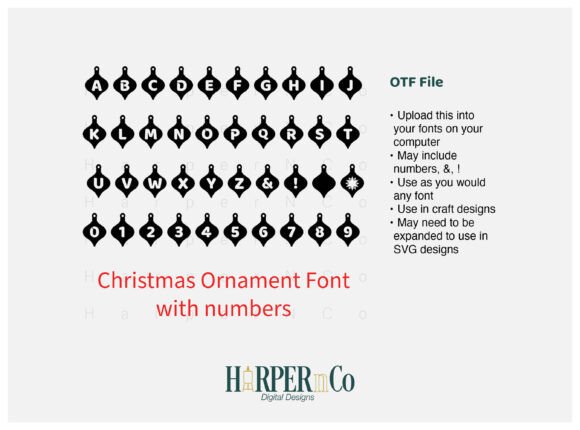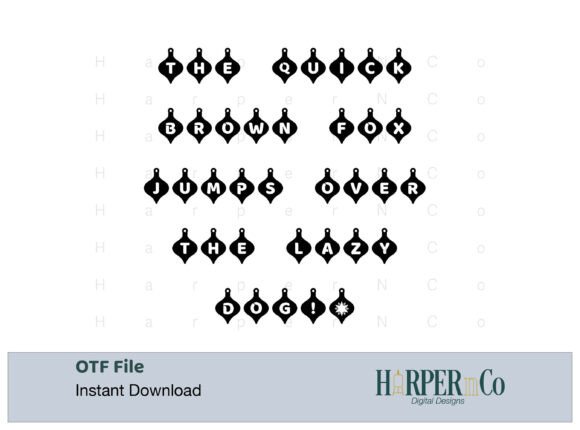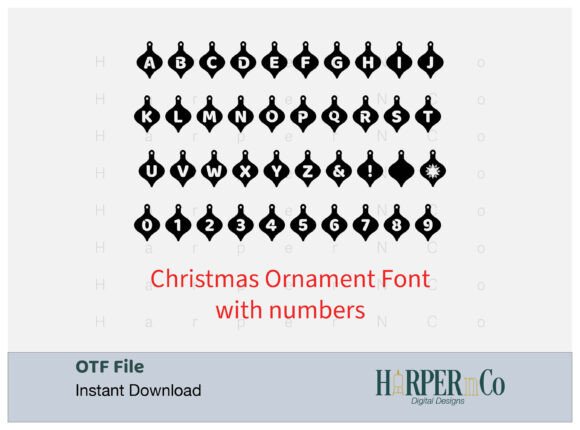
Introducing the Magical Christmas Ornament Font: Elevate Your Craft Projects This Holiday Season!
Are you a crafter, designer, or DIY enthusiast looking to add a touch of festive flair to your holiday projects? Look no further! We’re thrilled to introduce the Christmas Ornament Font, a delightful and versatile typeface that’s sure to become your new favorite companion for creating custom crafts. This font is perfect for all your craft projects, allowing you to make custom shirts, keychains, valentines, tags, bags, and whatever else you can think of!
What Makes the Christmas Ornament Font So Special?
The Christmas Ornament Font is a unique and charming typeface that’s specifically designed to capture the whimsical and festive spirit of the holiday season. With its intricate and ornate details, this font is sure to add a touch of magic to any project you create. Whether you’re making custom holiday cards, decorations, or gifts, this font will help you stand out from the crowd and make your projects truly unforgettable.
The Christmas Ornament Font is incredibly versatile, making it perfect for a wide range of craft projects. Here are just a few ideas to get you started:
- Custom Shirts: Create one-of-a-kind holiday tees, aprons, or tote bags with this eye-catching font.
- Keychains and Tags: Add a personal touch to your gifts or keychains with custom monograms or names.
- Valentines and Gift Tags: Make your loved ones feel special with custom valentines and gift tags featuring this beautiful font.
- Bags and Wrapping Paper: Add a festive touch to your holiday gifts and shopping bags with custom labels and wrapping paper.
- And More! The possibilities are endless! Use this font to create custom holiday cards, decorations, and gifts that will leave a lasting impression.
Why Designers and Crafters Love the Christmas Ornament Font
The Christmas Ornament Font is a must-have for designers and crafters who want to take their holiday projects to the next level. Here are just a few reasons why:
- Unique and Festive: This font is specifically designed to capture the magic and wonder of the holiday season.
- Highly Versatile: Use this font for a wide range of craft projects, from custom shirts and keychains to holiday cards and decorations.
- Scalable: This font is designed to be scalable, ensuring that it looks great on any project, from small keychains to large banners.
Get Ready to Make Your Holiday Projects Shine!
Key Features of the Christmas Ornament Font
- Festive and Ornate: This font features intricate and ornate details that are sure to add a touch of magic to your projects.
- High-Quality Design: This font is designed with high-quality craftsmanship in mind, ensuring that it looks great on any project.
In conclusion, the Christmas Ornament Font is a must-have for designers and crafters who want to create unique and festive holiday projects. With its intricate details, versatility, and ease of use, this font is sure to become a favorite in your design toolkit. So why wait? Download the Christmas Ornament Font today and start creating magical holiday projects that will leave a lasting impression!